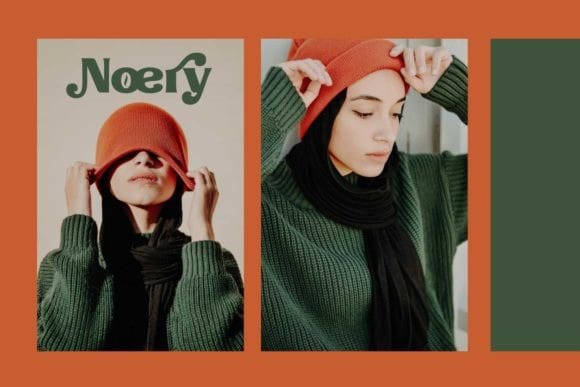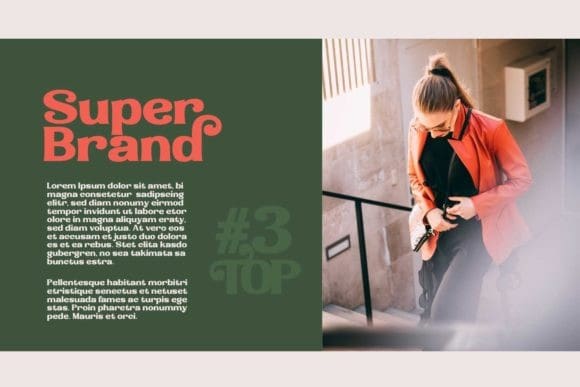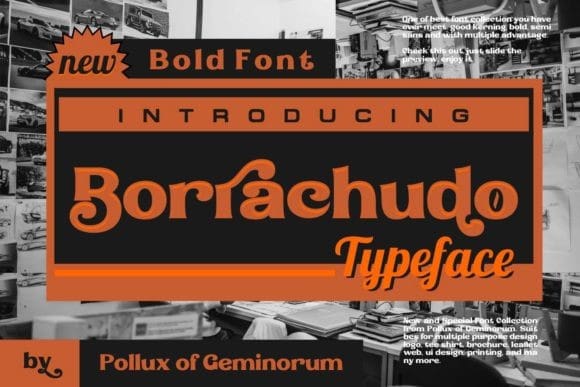
Borrachudo Font
Borrachudo Font is a cool, stylish and bold serif font. It is suitable for any branding project like logos, t-shirt printing, sport designs, and more. It will look outstanding in a wide range of contexts.